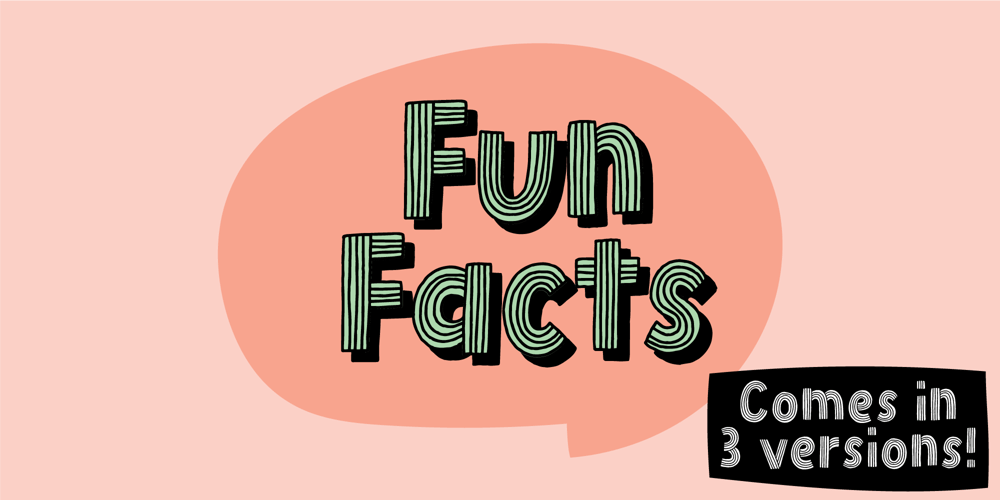
Fun Facts
Fun Facts font
Fun Facts Font Family was designed by Jakob Fischer and published by PizzaDude.dk. Fun Facts contains 3 styles and family package options. The world is full of fun facts, like “Plants came before seeds”, “Giraffes hum to communicate with each other” and “You remember more dreams when you sleep badly” and many, many, many more … Is this useful knowledge? I’ll let you be the judge.But speaking of useful: How about a layered, handmade and nice little font for your next creative project? Maybe my Fun Facts font could help you out?Either way, it is a fact that I spend quite some time, drawing all those lines when making all the letters!